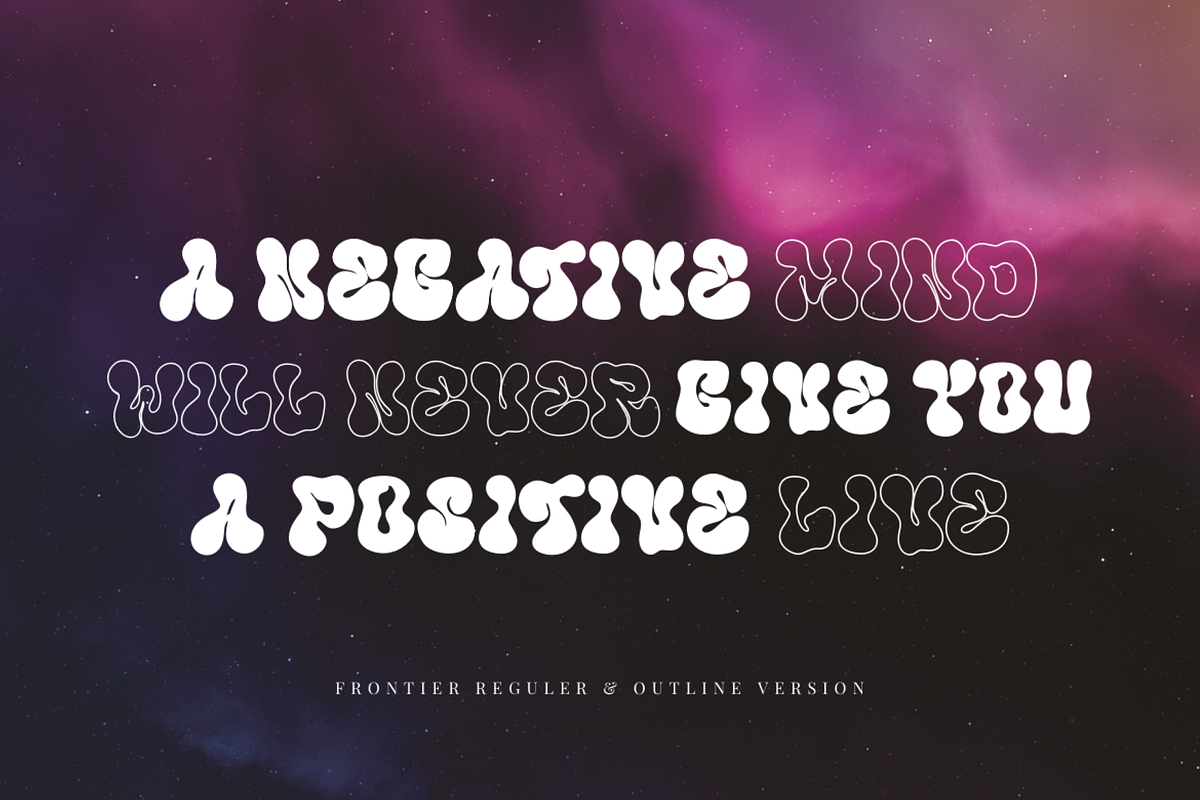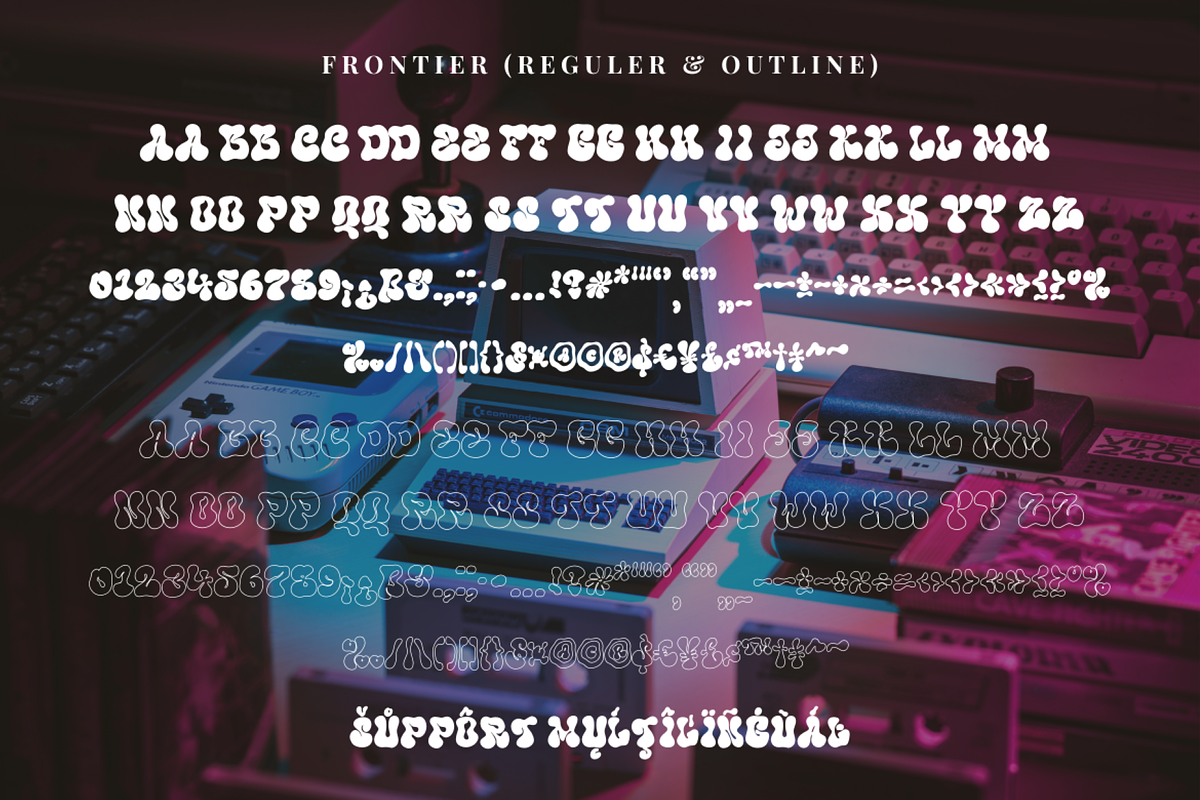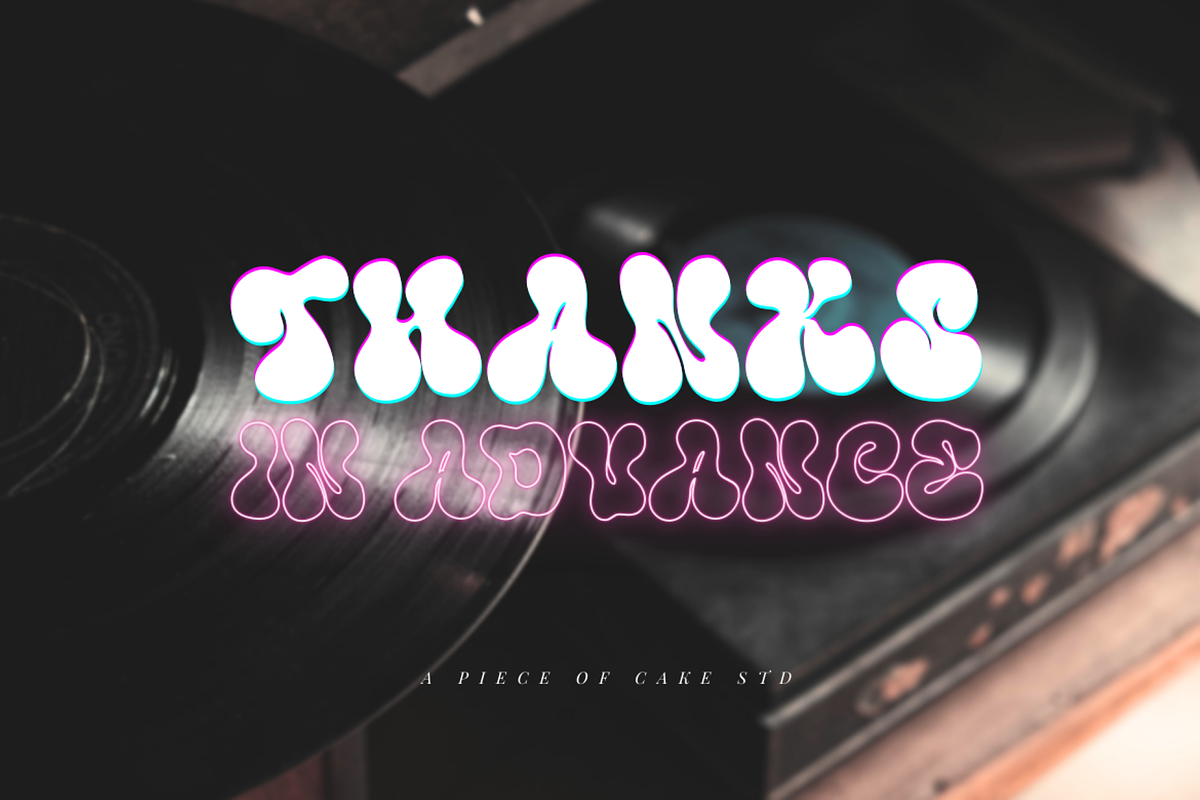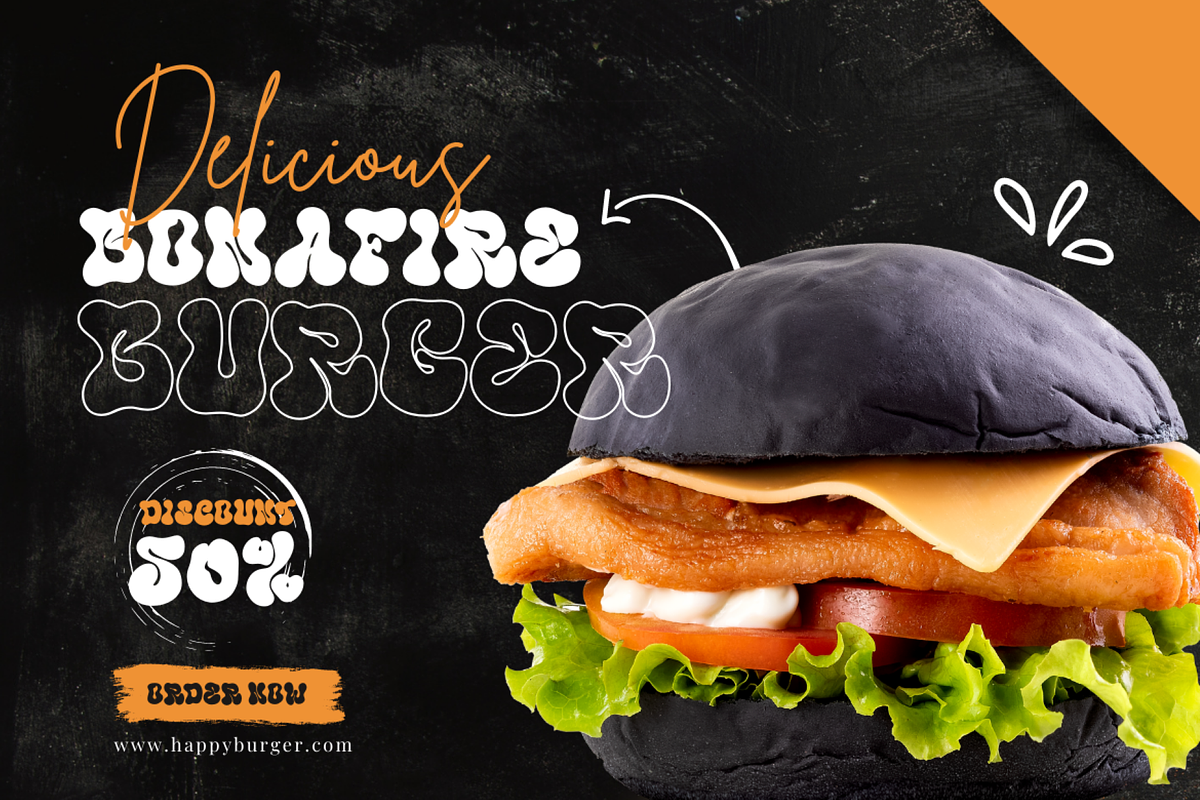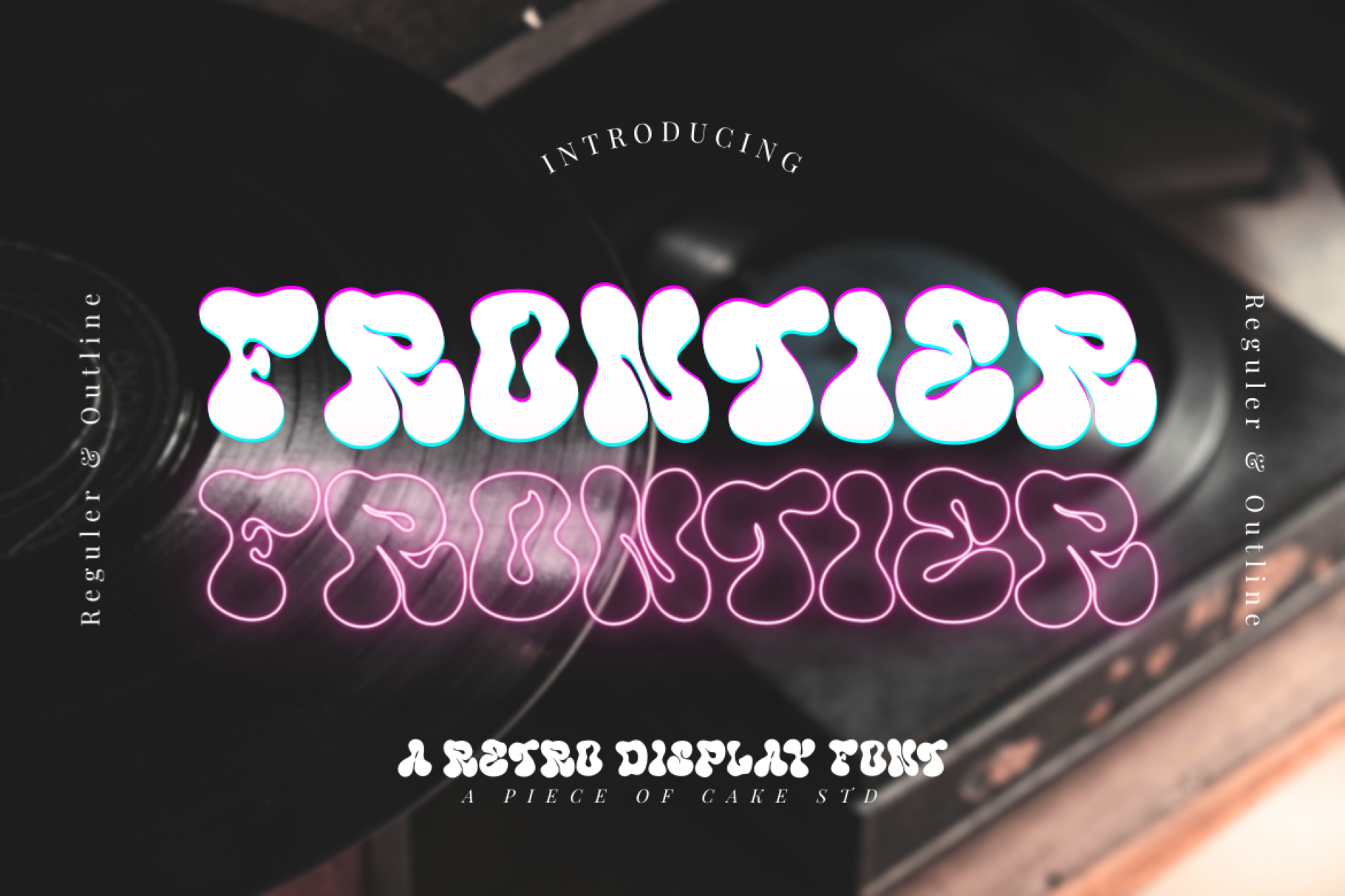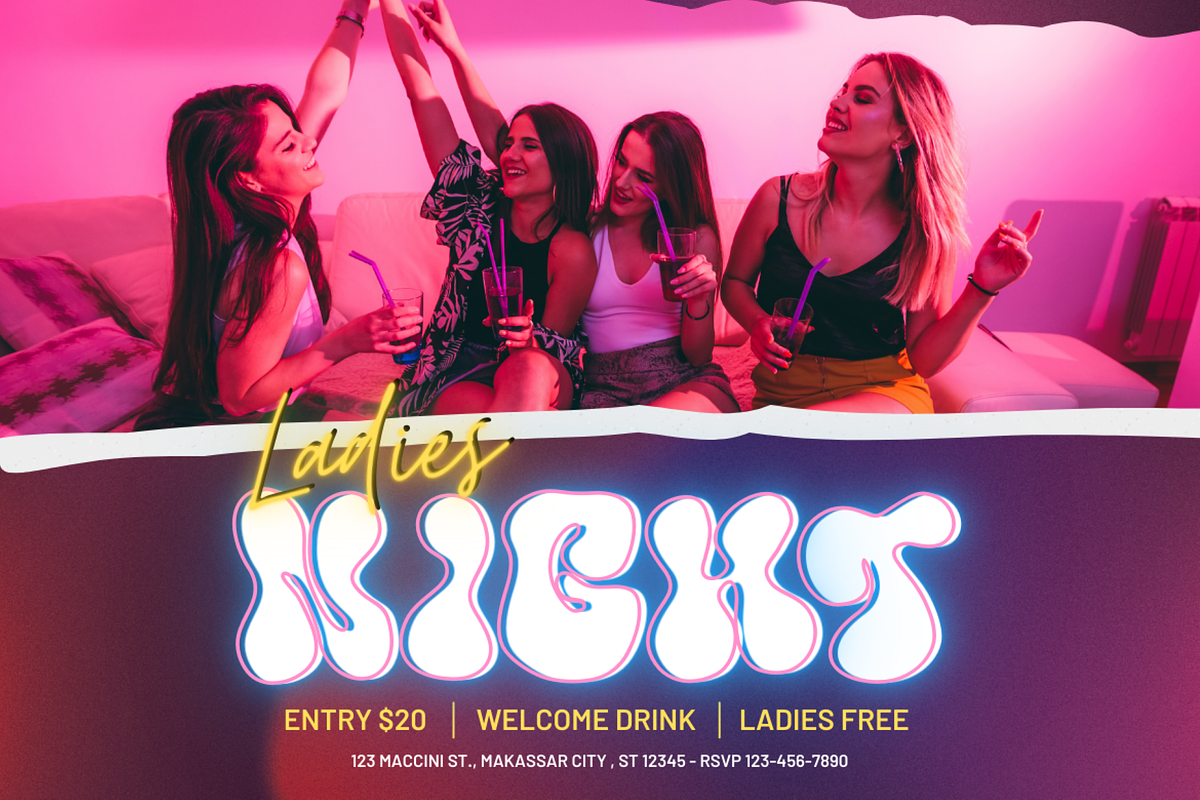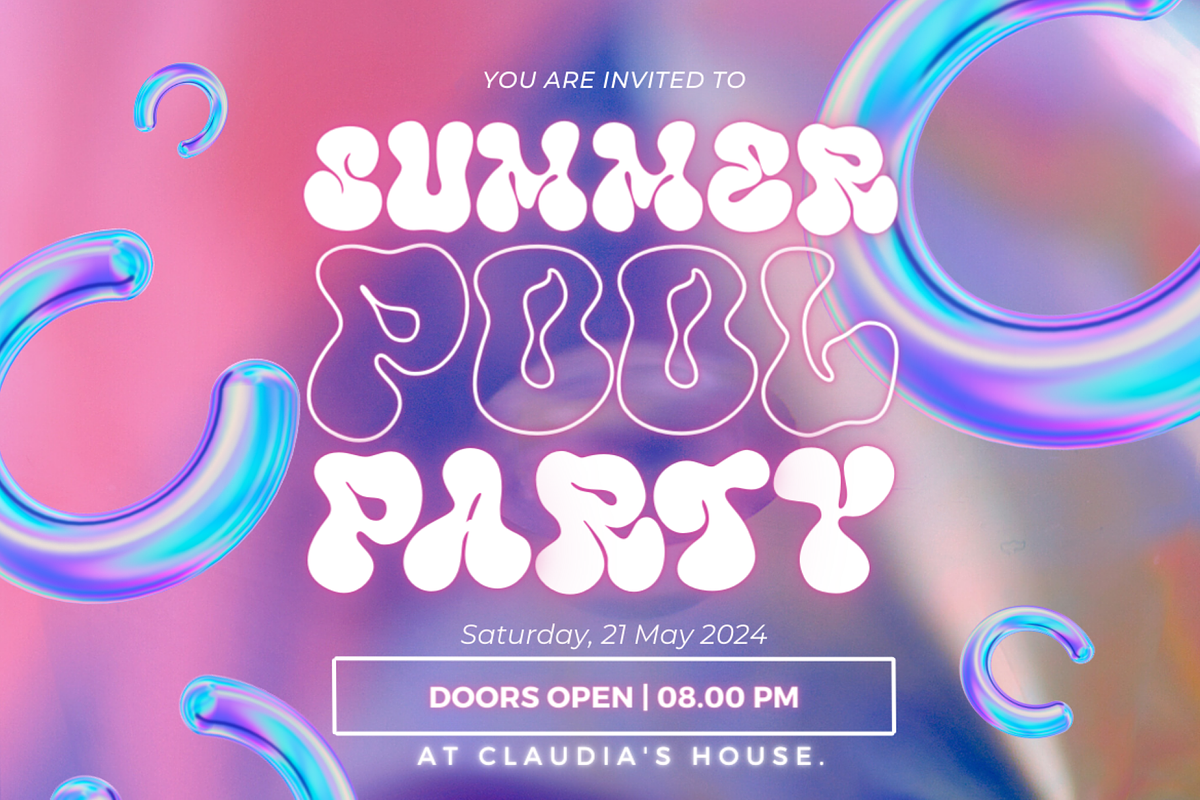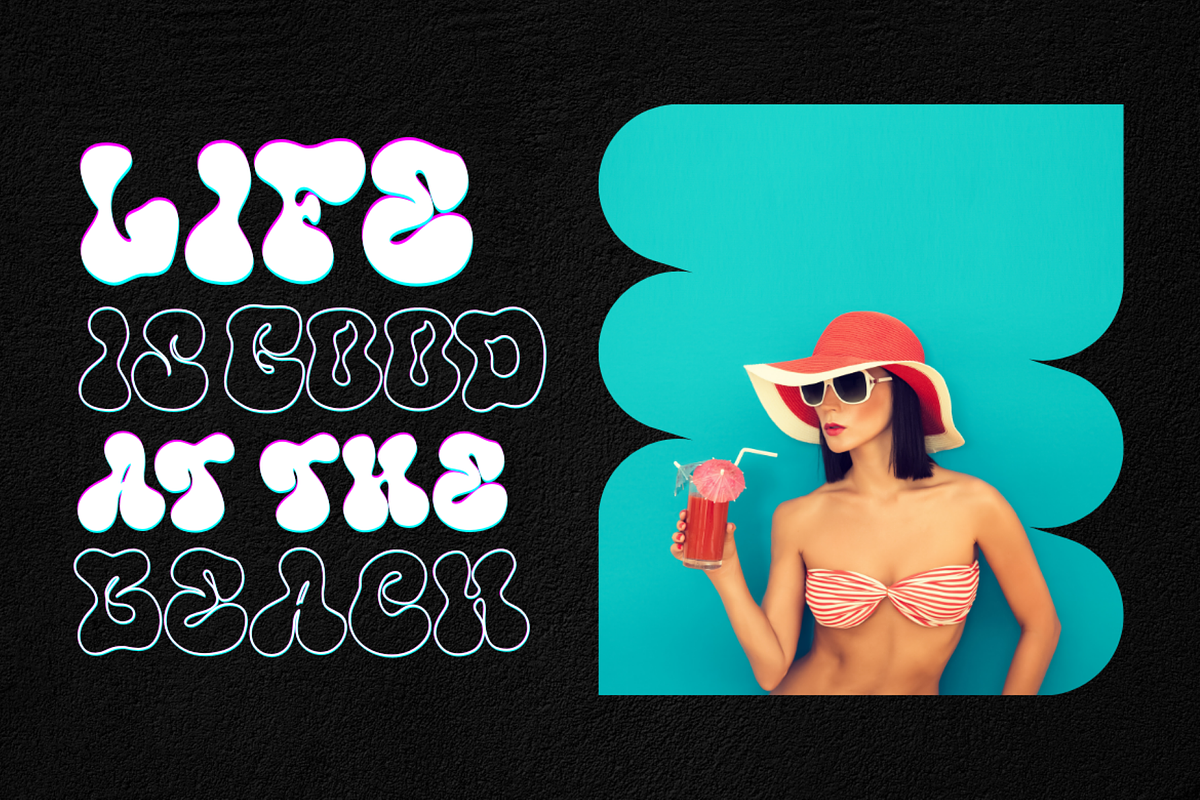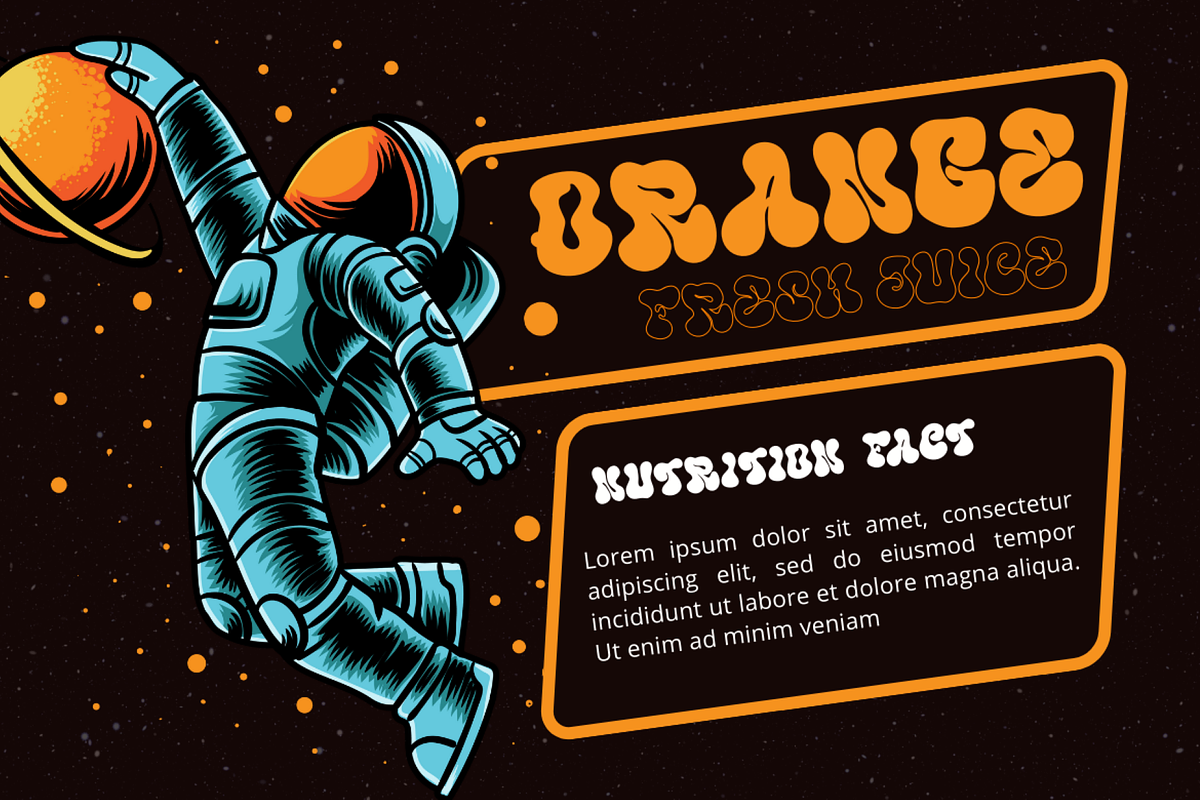
Frontier - A Retro Display Font
Introducing Frontier a psychedelic display font designed for retro vibes and eye-catching designs. With its flowing, intricate style, it's perfect for poster design, vintage branding, standout packaging, and quotes. The font comes with an extra outline version for added flair, and it supports multiple languages for global appeal. Let Frontier add a touch of nostalgia and visual enchantment to your creative projects.
- Allcaps
- Number, symbol, and punctuation
- Outline Version